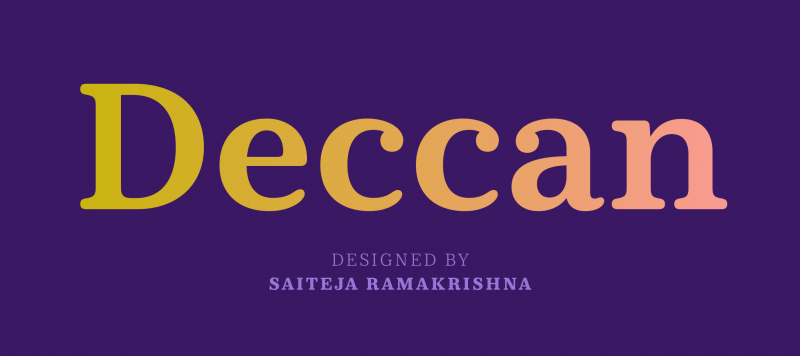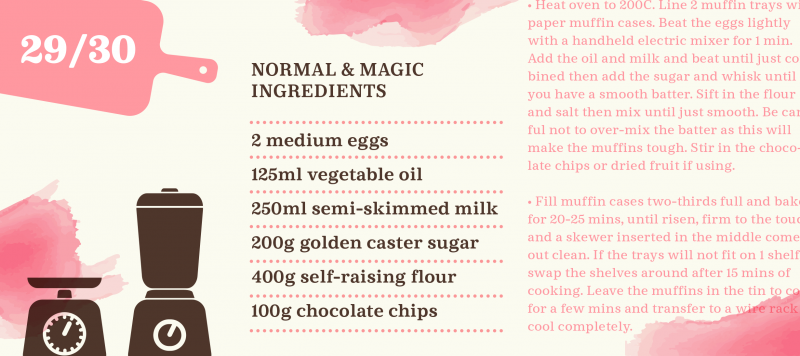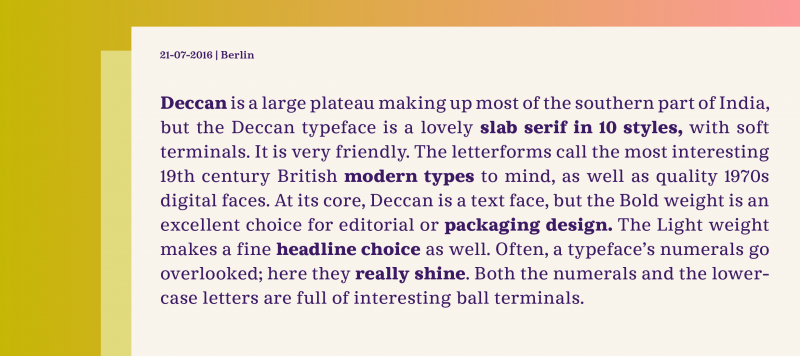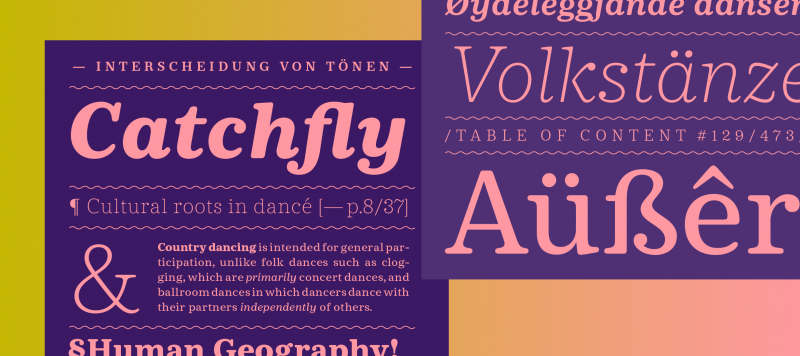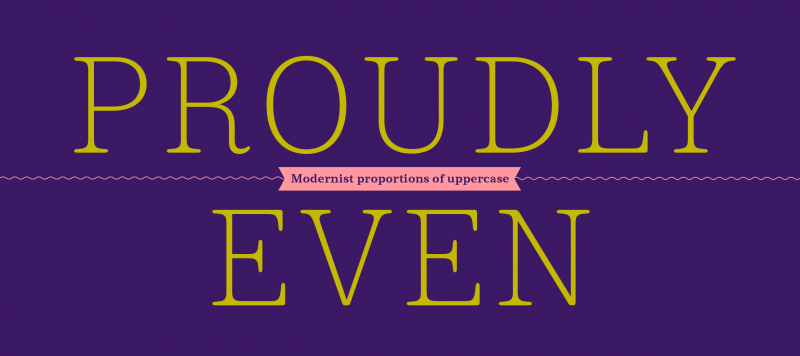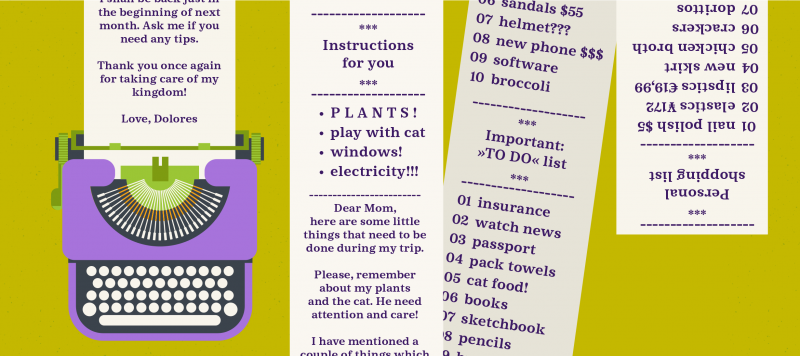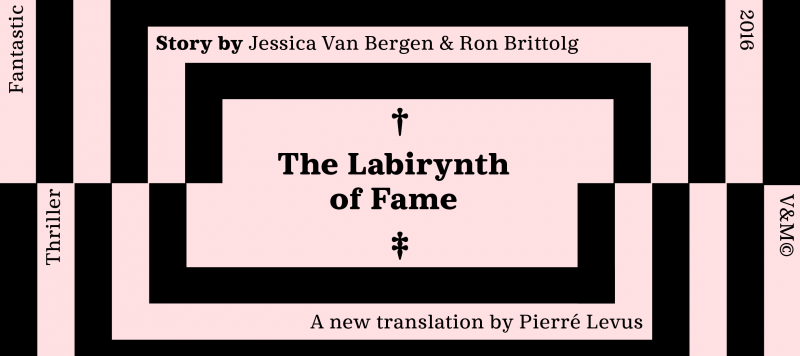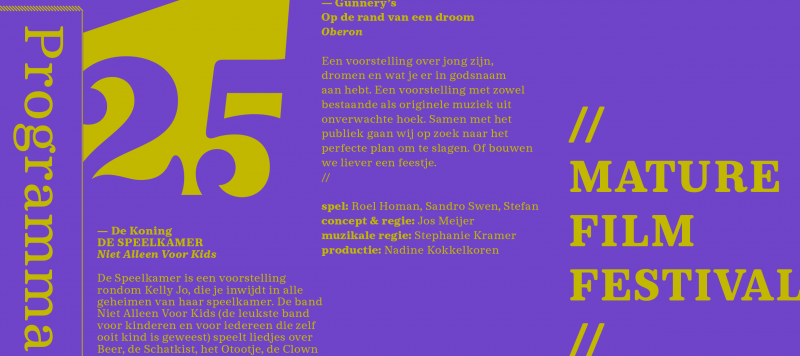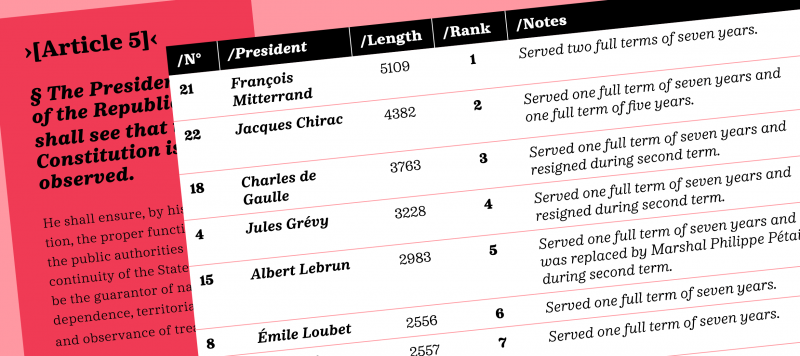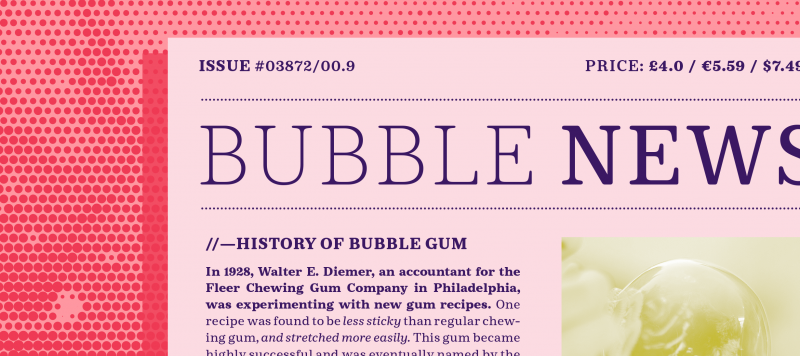
Deccan is a large plateau making up most of the southern part of India, but the Deccan typeface is a lovely slab serif, with soft terminals. Its design is very friendly. The letterforms call the most interesting 19th century British modern types to mind, as well as quality 1970s digital faces. At its core, Deccan is a text face, but the Bold weight is an excellent selection for editorial or packaging design. The Light weight makes a fine headline choice as well. Often, a typeface’s numerals go overlooked; here they really shine. Both the numerals and the lowercase letters are full of interesting ball terminals.
Family Name Deccan
Designer(s) Ramakrishna Saiteja
Classification Slab